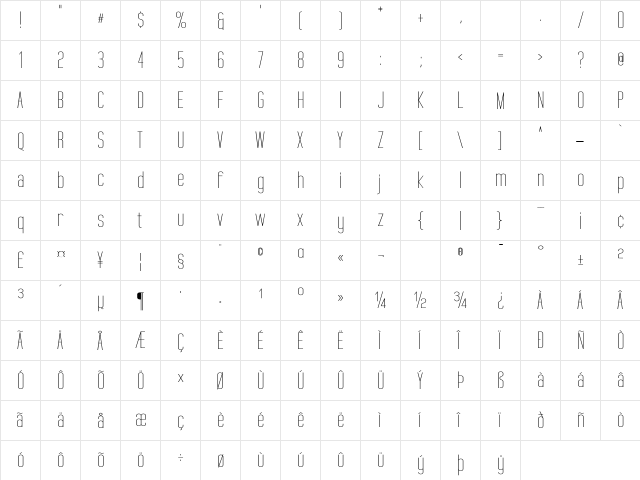
Tall Films Expanded Regular
Design Context for Tall Films Expanded Typeface
Tall Films Expanded is a composed and adaptable typeface that performs quietly and consistently across a wide range of design contexts.
Pro Tip: Use Tall Films Expanded in both headline and body roles to test its range before committing to a single application.